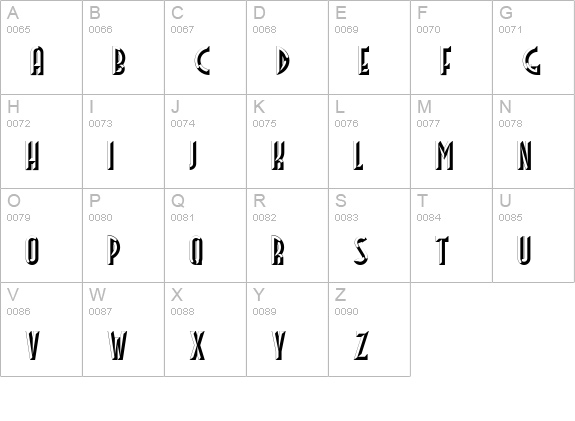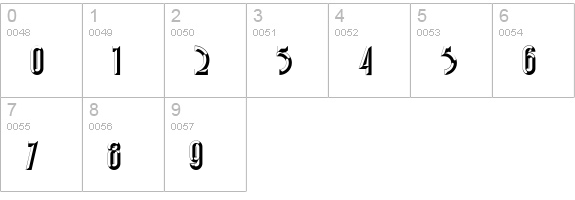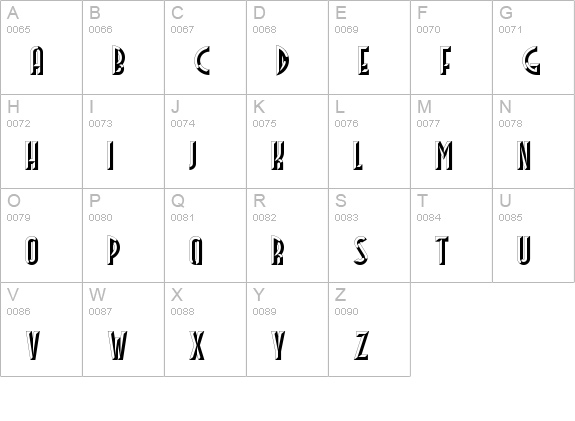
Facets NF Font Details
Facets NF font is a stunning typeface that exudes elegance and sophistication. With its intricate, geometric shapes and clean lines, this font is perfect for adding a touch of modernity to any design project. The precise detailing of each letterform creates a sense of precision and professionalism. What sets Facets NF font apart is its versatility. It can be used for both display purposes and body text, making it suitable for a wide range of applications such as logos, headlines, posters, and more. Its balanced proportions ensure legibility even at smaller sizes, while its bold presence demands attention when used larger. One of the most appealing aspects of Facets NF font is that it is free. Yes, you heard that right! This incredible font is freely available to download at FontsMarket.com. This means that you can enhance your designs without spending a dime. Whether you are a professional graphic designer or a beginner, having access to high-quality, free fonts like Facets NF font can make a world of difference. So why wait? Head over to FontsMarket.com and grab your copy of Facets NF font today. Elevate your designs and make a lasting impression with this visually striking and freely accessible typeface.